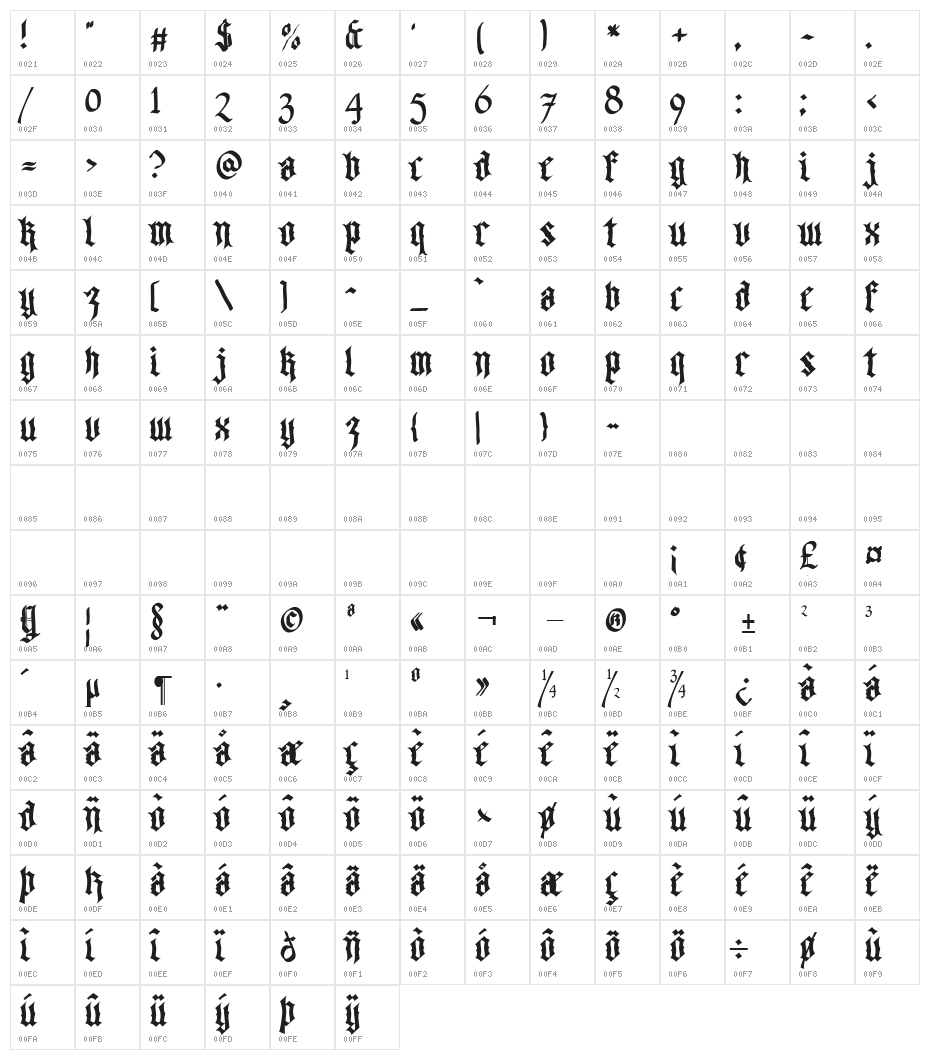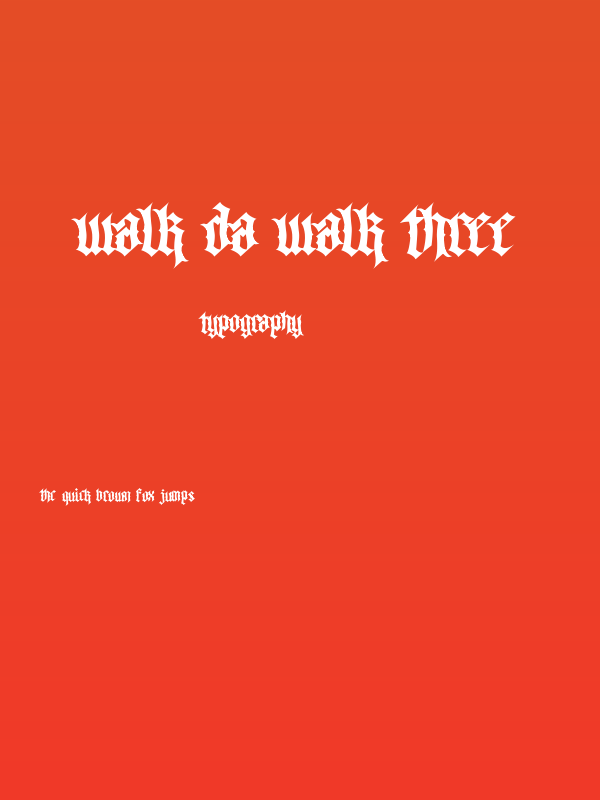
Walk Da Walk Three Font
Walk Da Walk Three Description
This font features a bold and dramatic blackletter style, reminiscent of traditional Gothic script. The characters are sharply angular with high contrast between thick and thin strokes, creating a striking and authoritative appearance. The uppercase and lowercase letters maintain a consistent style, with intricate details and a strong vertical emphasis. The numerals and special characters are equally ornate, fitting seamlessly with the overall aesthetic. This font evokes a sense of history and tradition, making it ideal for projects that require a touch of elegance and formality.
| Proposed Projects | Ideal for certificates, formal invitations, historical documents, and branding that requires a traditional or Gothic touch. |